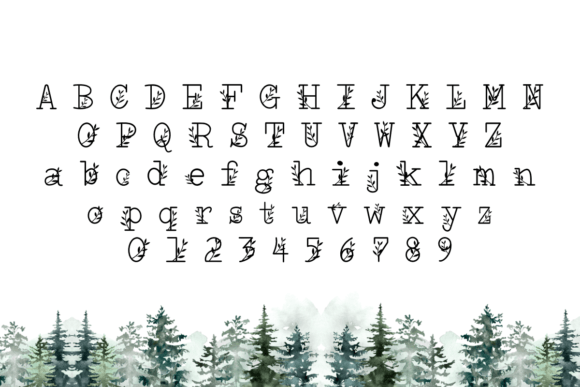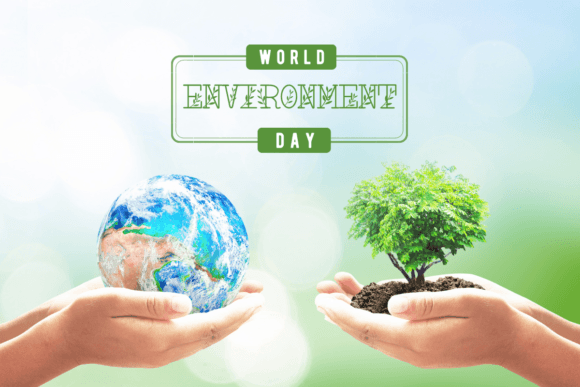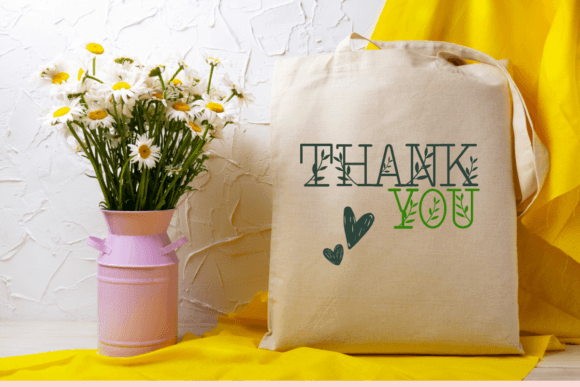
Introduction to Love World Font
As a designer, have you ever found yourself stuck on a project, struggling to convey the perfect sentiment? Perhaps you’re crafting a wedding invitation or a heartfelt love letter, and you need a font that captures the essence of your emotions. That’s where the enchanting Love World Font comes in – a delightful handwritten decorative font that adds a touch of charm to your projects.
With its unique feature of vines gracefully rising from the letters, Love World Font gives your text a whimsical and organic feel that’s simply irresistible. Whether you’re a professional designer or a creative enthusiast, this font is a valuable addition to your design resource. Its high-quality design and transparent background make it perfect for any project that demands a sweet and decorative touch.
Key Features of Love World Font
- High-quality design: The Love World Font is designed with precision and care, ensuring a professional and polished look for your creative project.
- Unique and creative: The Love World Font features a unique and creative design that is sure to stand out in any project, making it a valuable addition to any design resource.
Honest Review: Love World Font
Here’s what works well: ✨ The Love World Font features a transparent background, making it easy to use in a variety of creative projects. The design is modern, elegant, and perfect for headings or titles. The font is also highly customizable, allowing you to adjust the size, color, and spacing to suit your design needs.
- High quality design
- Customizable
However, I did notice a few limitations: ⚠️ The font is not ideal for body text, as it can be a bit too ornate. Additionally, the font family is limited, so you may not have as many options as you would with a paid font.
Overall, I’m impressed with the Love World Font. While it’s not perfect, it’s a great resource for designers who want a high quality, free font for their creative projects. Just be aware of its limitations and use it wisely.
Love World Font is suitable for a wide range of creative projects, including logos, brochures, flyers, and social media graphics. It’s also great for designing wedding invitations, event promotions, and other special occasion materials.